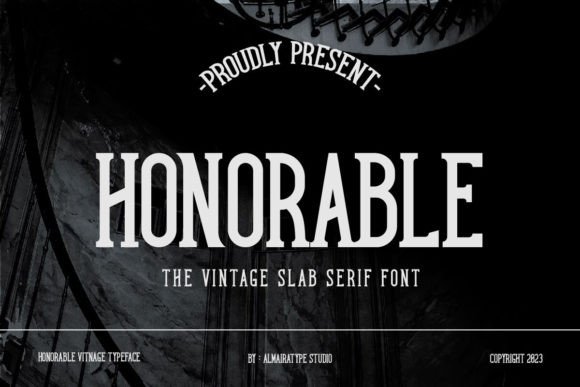
Introducing Honorable Font, the epitome of timeless vintage sophistication and character. Created by the renowned Almairatype Studio, this slab serif font is the ultimate choice for those seeking the best font for cups and Cricut. With its bold serifs and refined letterforms, Honorable exudes an air of authority that instantly captivates any audience.
Inspired by the elegance of bygone eras, Honorable takes you on a journey back in time while seamlessly blending with modern design trends. Its classic charm combined with a contemporary edge makes it the perfect companion for a wide range of projects, from branding to packaging and editorial design.
Immerse yourself in the world of Honorable Font, where every curve and stroke tells a story. Each character has been meticulously crafted to convey a sense of elegance and sophistication, leaving a lasting impression on your audience. Let the timeless appeal of this font transport your creations to a whole new level.
Whether you're a professional designer or a passionate hobbyist, Honorable Font offers endless possibilities. Its versatility knows no bounds, allowing you to effortlessly express your creativity and bring your visions to life. From vintage-inspired logos to eye-catching headlines, this font will elevate your designs and make them stand out from the crowd.
But Honorable Font is not just a pretty face. It is also designed with functionality in mind. Its legibility ensures that your message is conveyed clearly and effectively, even at smaller sizes. With Honorable, you can be confident that your text will always make a bold statement, no matter the medium.
Don't settle for ordinary fonts when you can have the extraordinary. With Honorable Font, you have the key to unlocking a new level of design excellence. Add a touch of sophistication and character to your creations and let your imagination run wild. Elevate your designs with the best font for cups and Cricut – Honorable Font.